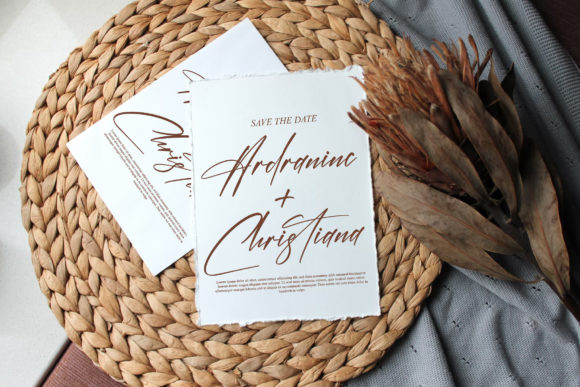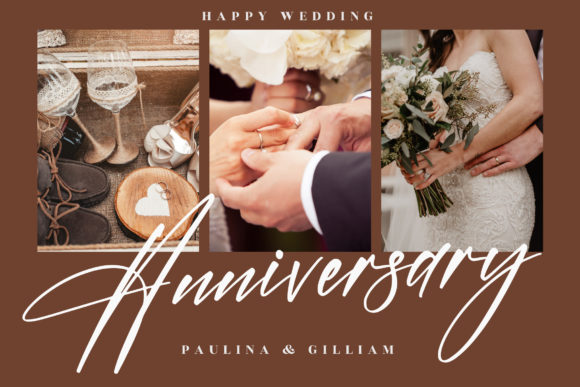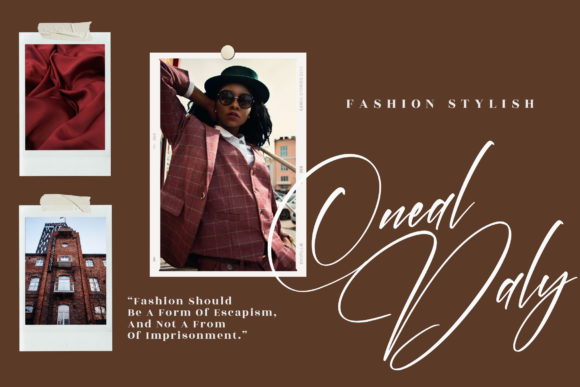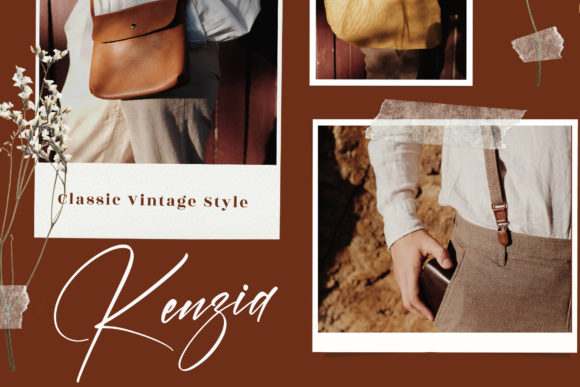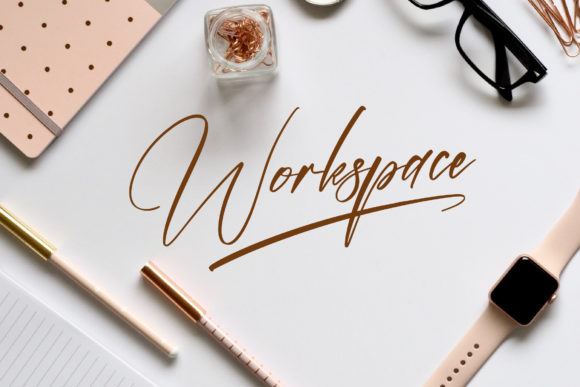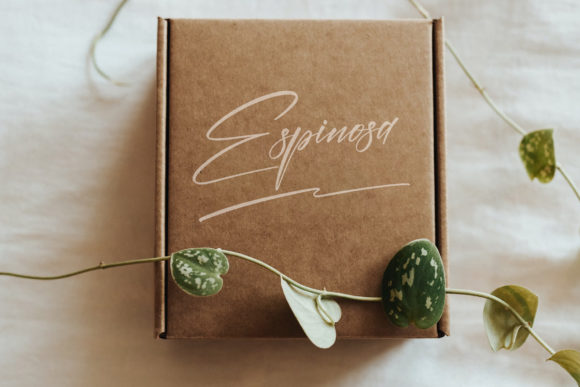
Introduction to Rembulan Signature Font
As a designer, you’ve likely found yourself staring at a blank canvas, searching for the perfect font to bring your creative project to life. That’s exactly where I was when I stumbled upon the Rembulan Signature Font. Its elegant script and contemporary atmosphere immediately caught my eye, transporting me to a world of timeless classic calligraphy.
The Rembulan Signature Font is more than just a pretty face – it’s a valuable design resource that can elevate your work and leave a lasting impression. With its impeccable form and PUA encoded features, you can access all glyphs and swashes with ease, making it a high-quality addition to any design project. Whether you’re working on a logo, business card, or invitation, this font is sure to add a touch of sophistication and class.
Key Features of Rembulan Signature Font
- Unique and elegant design perfect for creative projects, offering a high-quality aesthetic.
- Transparent background, allowing for easy customization and blending with your design resources.
- High-resolution design, suitable for both digital and print-based creative projects, ensuring crisp and clear visuals.
- Perfect for adding a touch of sophistication and elegance to your designs, making it an ideal design resource.
- Supports a wide range of languages, making it a versatile font for various creative projects and applications.
Honest Review: Rembulan Signature Font
I recently stumbled upon the Rembulan Signature Font while searching for a high-quality design resource to elevate my creative project. As a designer, I appreciate fonts that can make a statement, and I was excited to see how this one would perform.
What works well about the Rembulan Signature Font is its unique and elegant design. The transparent background allows for easy layering and customization, making it perfect for creating eye-catching graphics. The font is also highly versatile and can be used for a variety of design projects, from logos to social media posts.
Here are some key features that I love about the Rembulan Signature Font:
- ✨ Unique and elegant design
- ✨ Highly versatile and suitable for various design projects
- ⚠️ Limited character set, which may not be suitable for long-form content
- ⚠️ May not be compatible with all design software or platforms
How to Use Rembulan Signature Font
The Rembulan Signature Font is ideal for designers, artists, and entrepreneurs looking for a unique and creative design resource. It is perfect for creating social media graphics, blog posts, and website designs.
Tips for Getting the Most Out of Rembulan Signature Font
For the best results, use the Rembulan Signature Font in conjunction with other high-quality design elements, such as images and graphics. Experiment with different font sizes and colors to create a unique and eye-catching design.